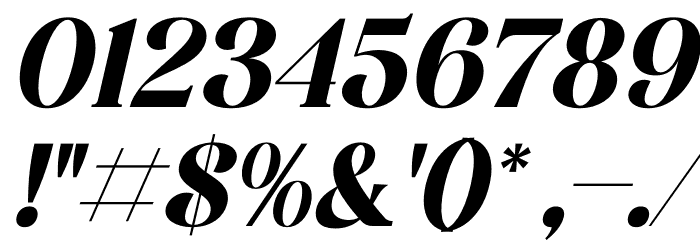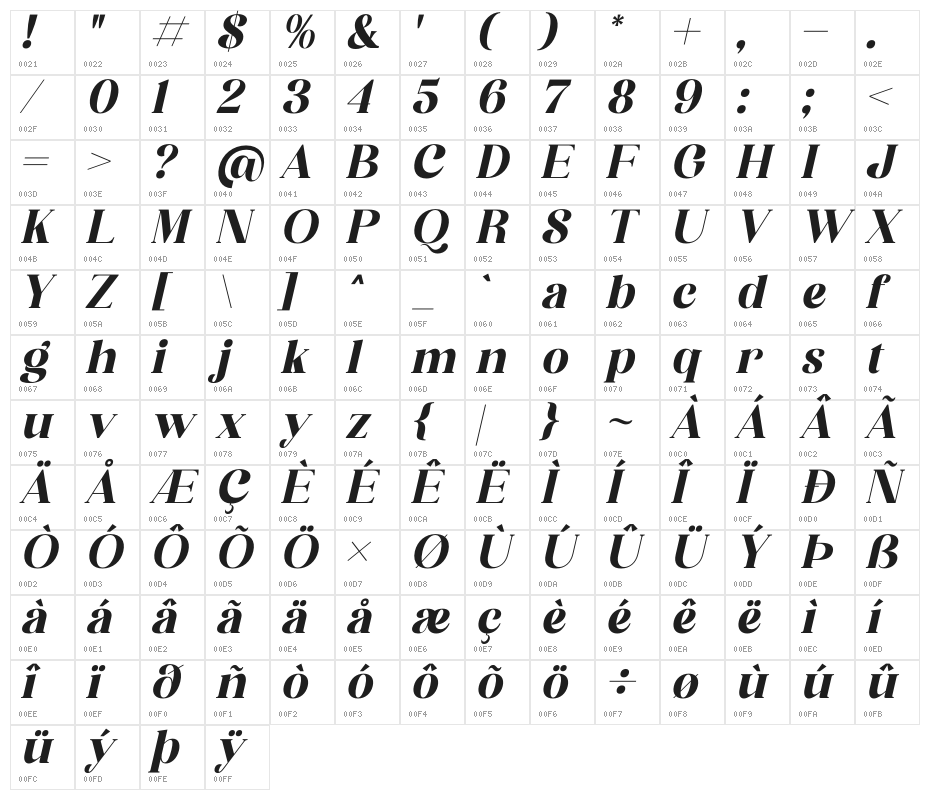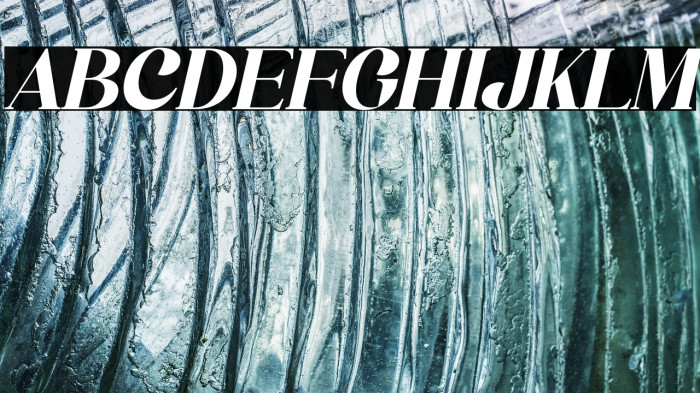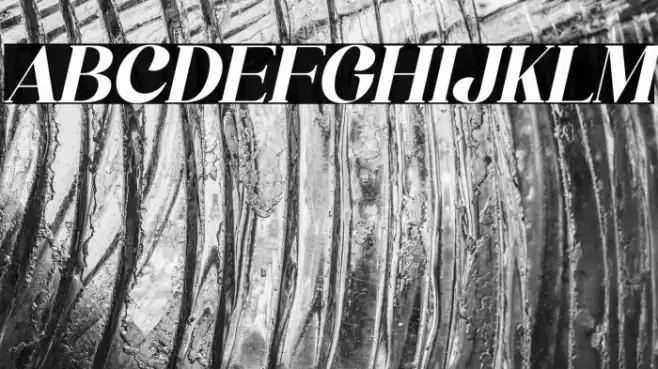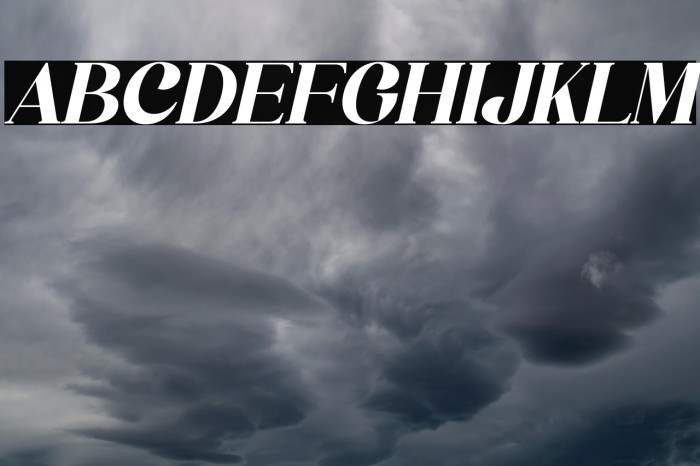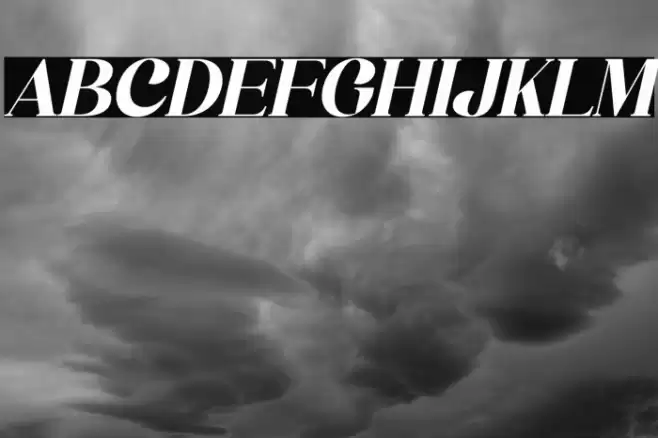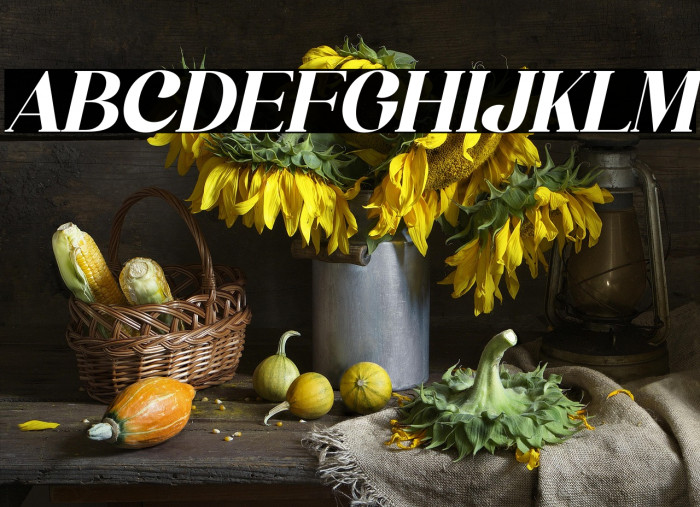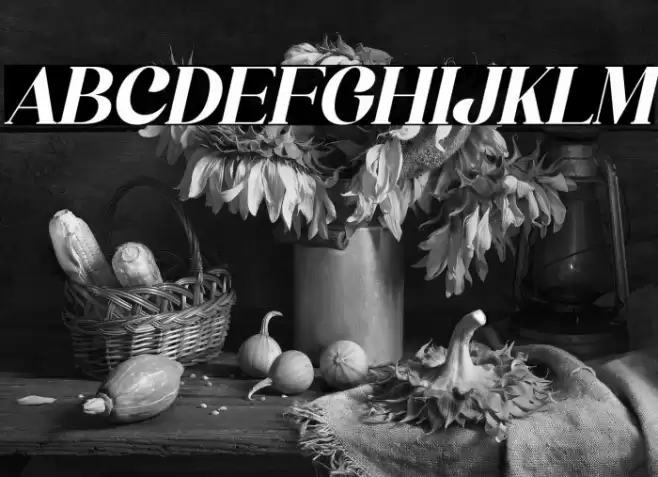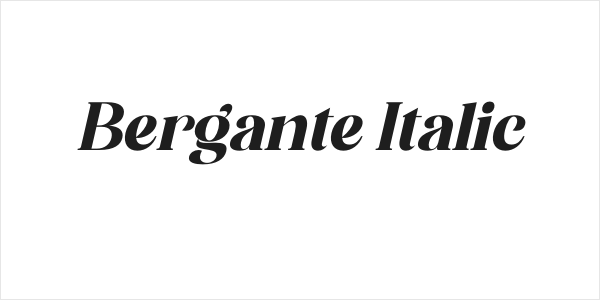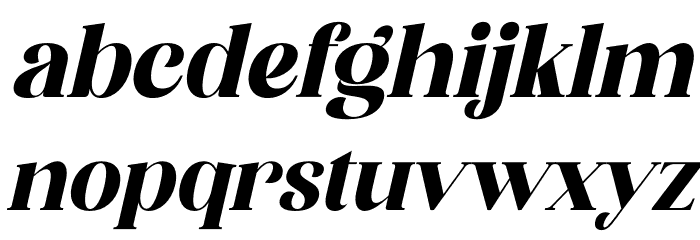
Bergante Italic Font
Bergante Italic Description
This font features a dynamic and elegant italic style, characterized by its smooth and flowing letterforms. The uppercase letters exhibit a strong presence with a slight slant, while the lowercase letters maintain a consistent and harmonious flow. The numerals are bold and easily readable, complementing the overall aesthetic. Special characters are designed with the same attention to detail, ensuring versatility and coherence across different uses. The font's high contrast between thick and thin strokes adds to its sophisticated appearance, making it suitable for a variety of design applications.
| Use Case | Headlines, Logos, Editorial design |
| Proposed Projects | Ideal for luxury branding, editorial design, fashion magazines, and elegant invitations. |